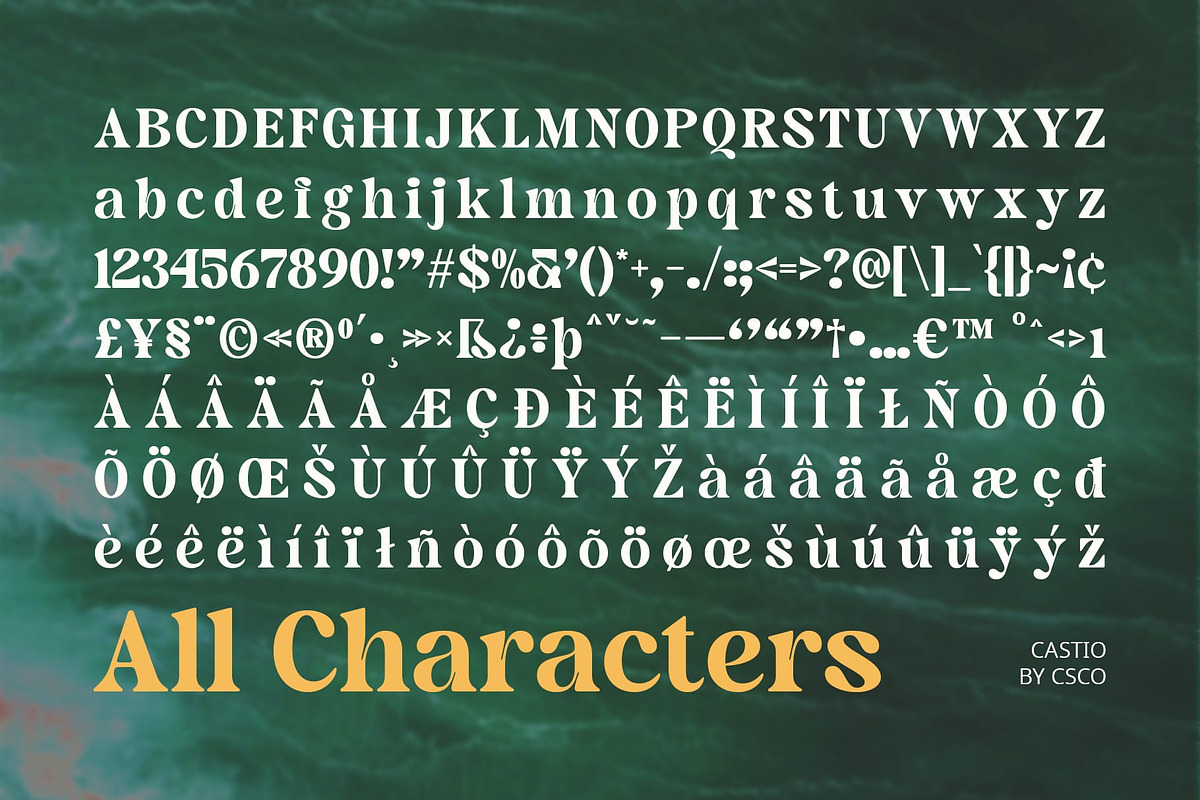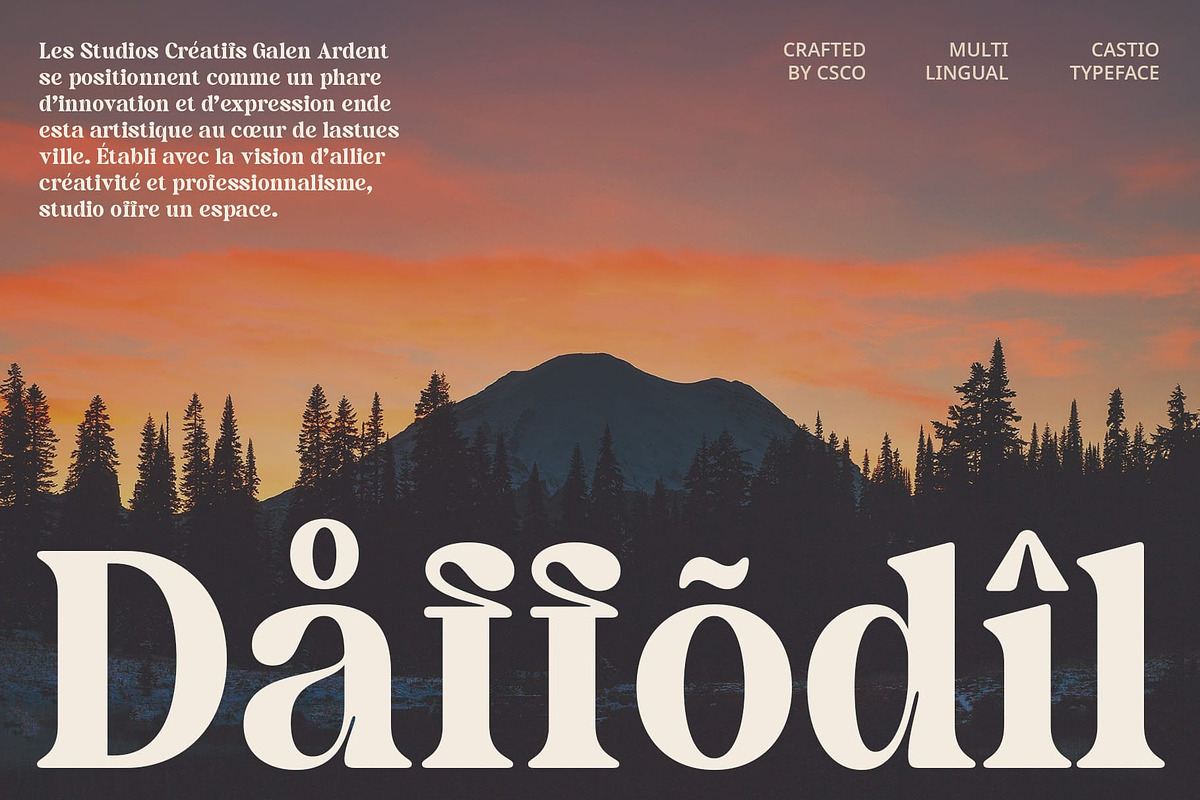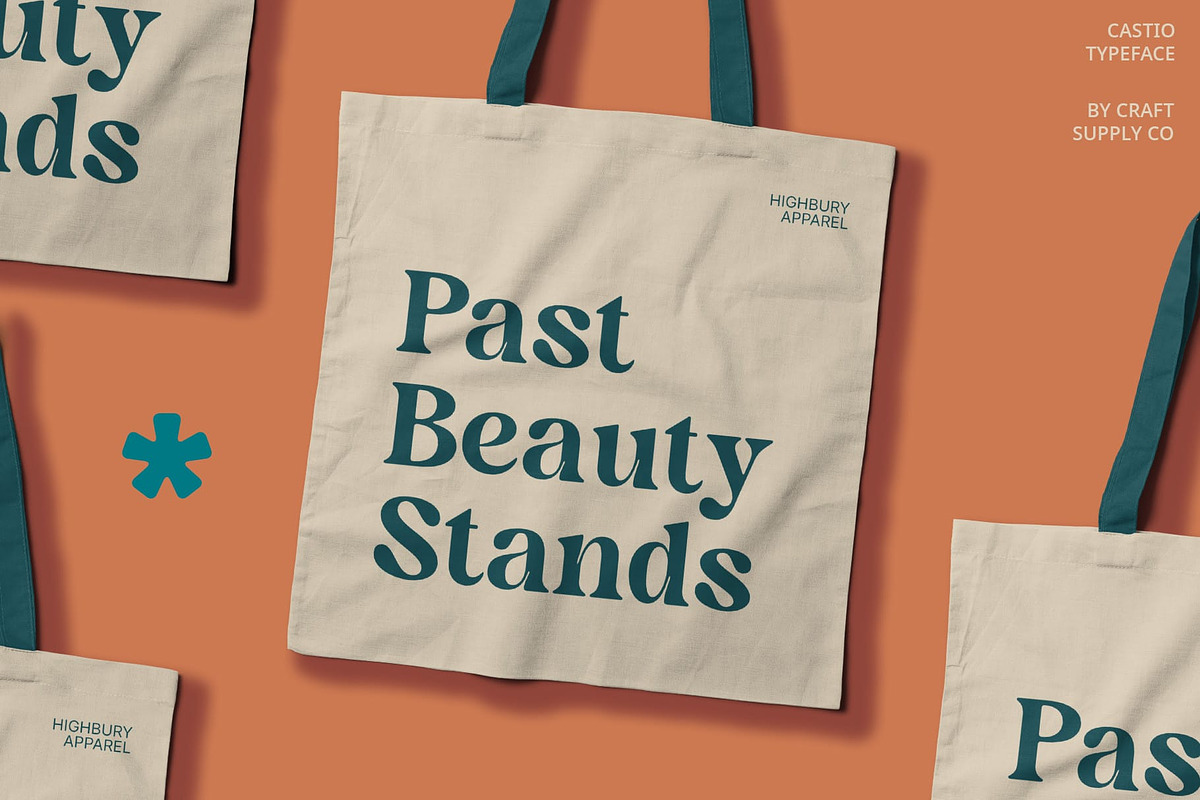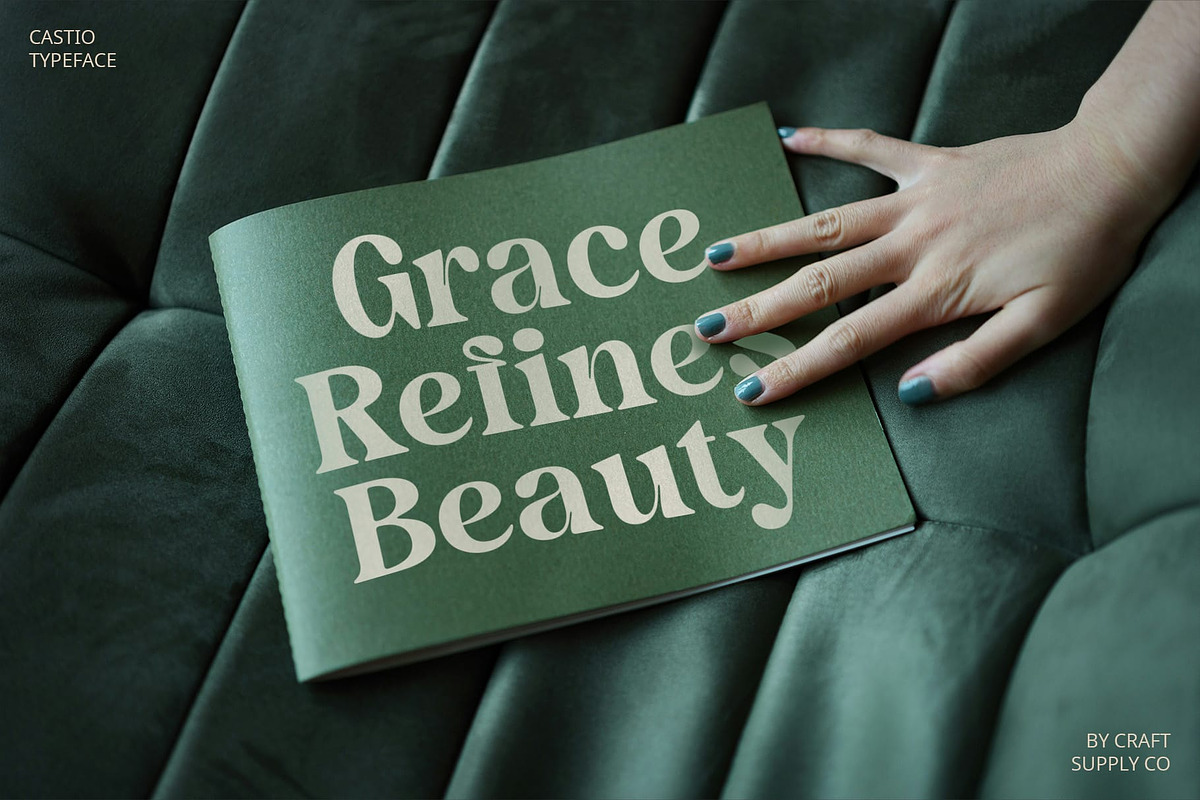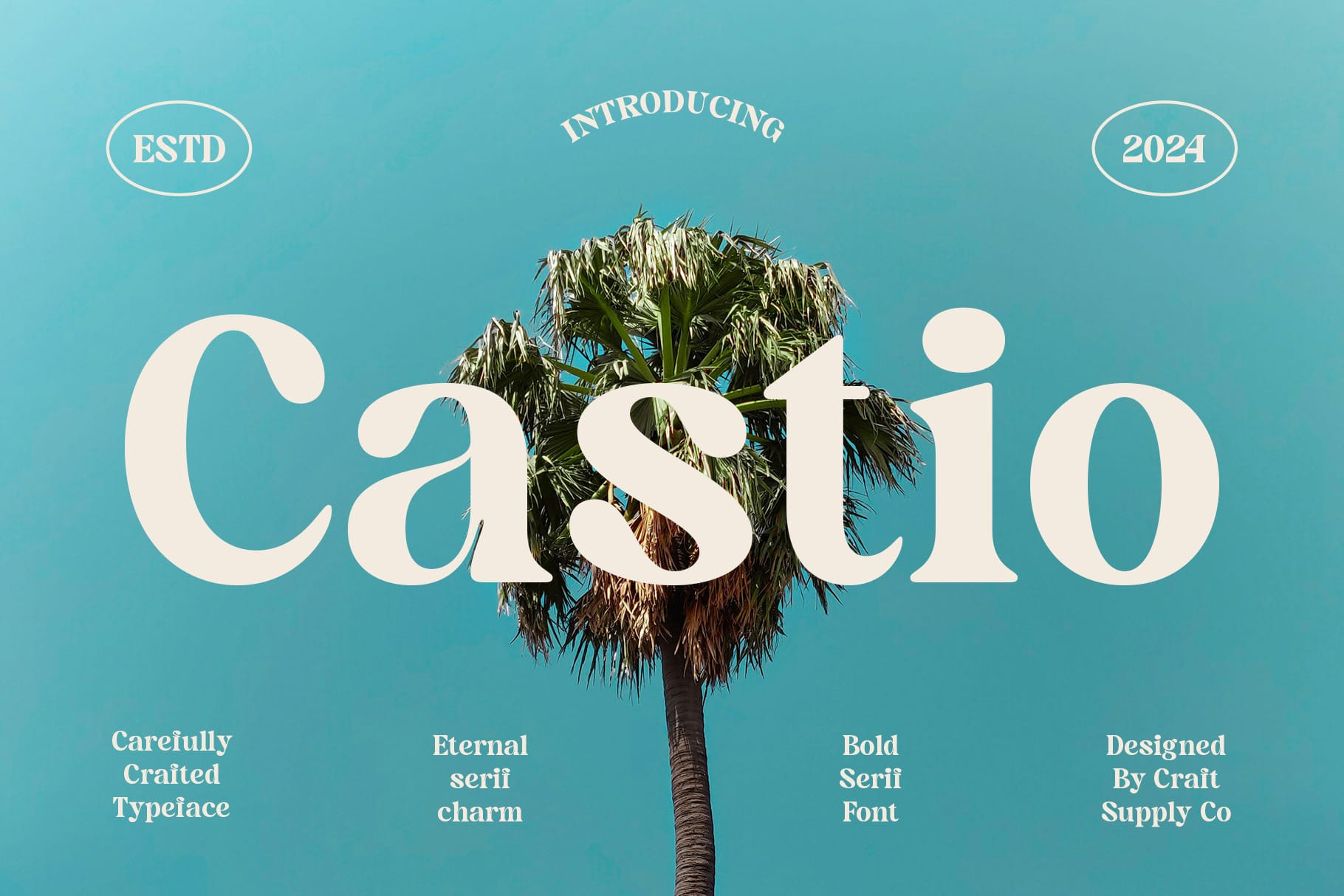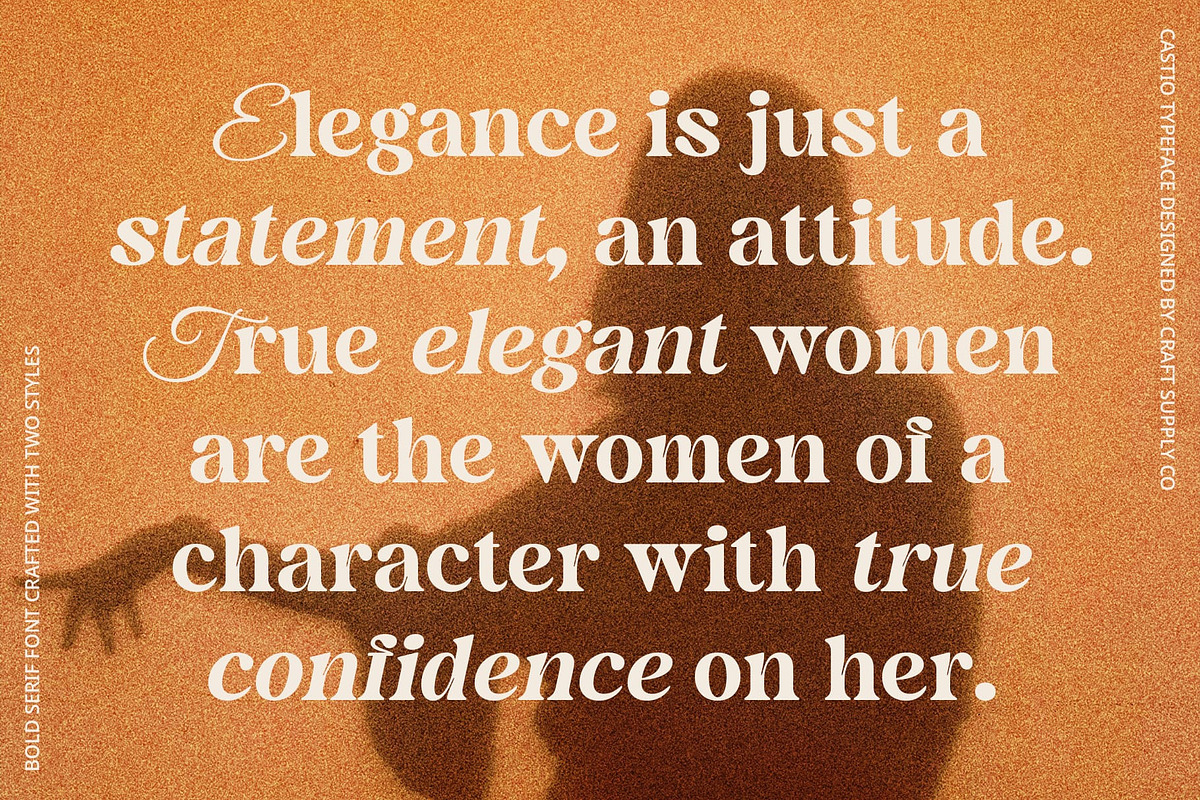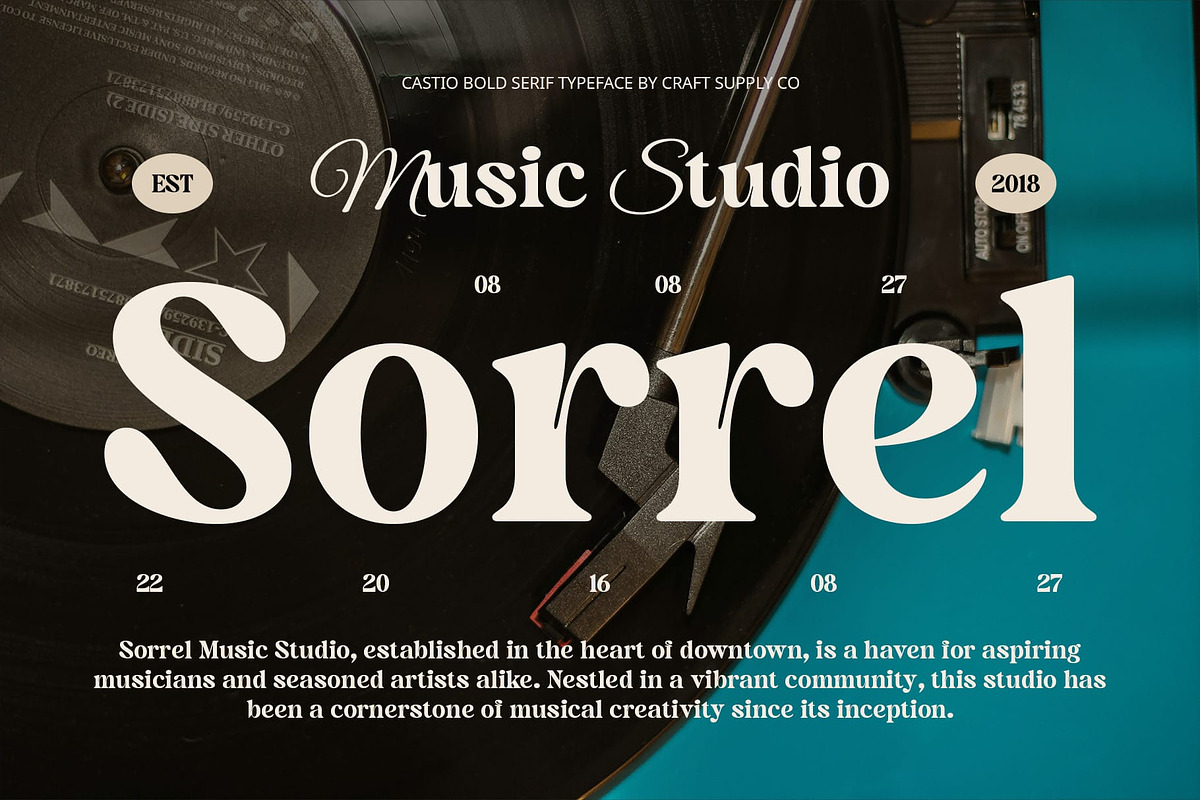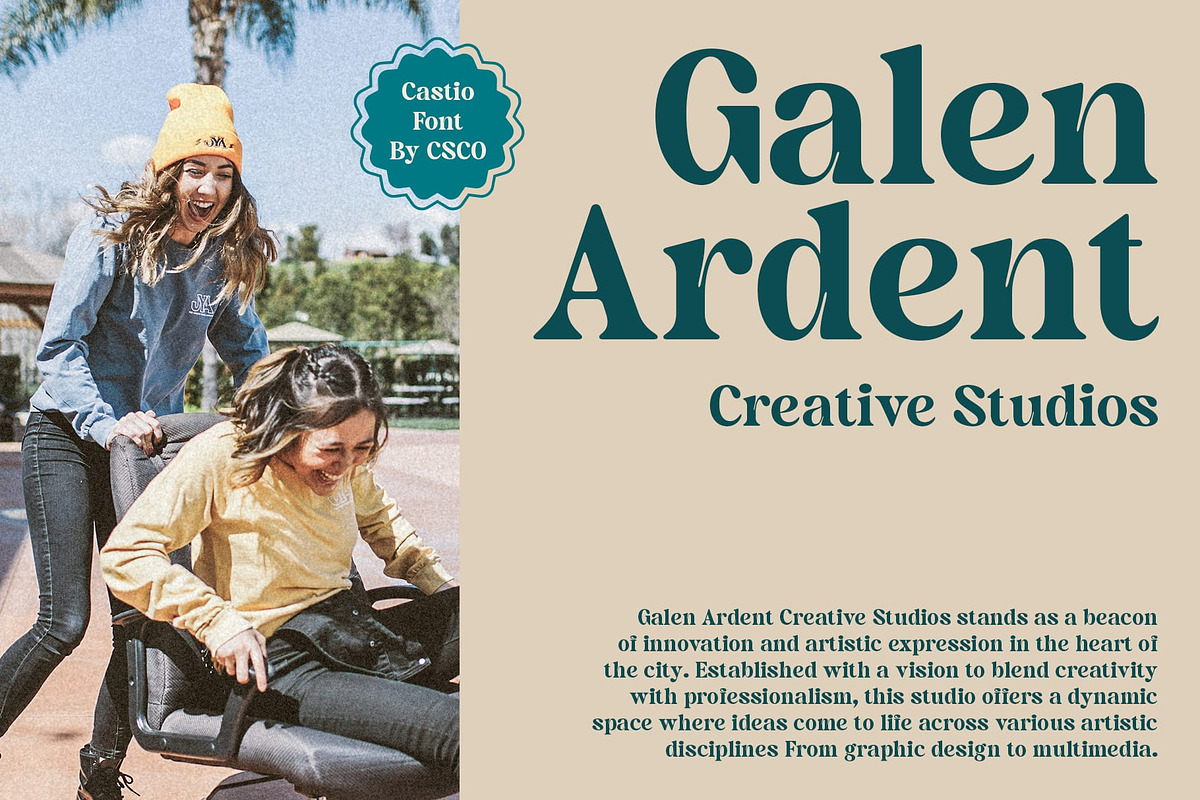
Castio – Bold Font
Castio – Bold Font: Luxurious Nostalgia
Bold Serif Font, Retro and Elegant Castio – Bold Font is a bold serif font with a retro and elegant feel, featuring classic thick lines adorned with subtle decorative details. This font exudes a luxurious nostalgic vibe, making it perfect for designs that aim to highlight opulence and heritage.
Perfect for Titles, Logos, and Branding With its bold and refined design, Castio is ideal for titles, logos, and branding projects that require an elegant and classy vintage touch. Its thick lines and decorative details add a touch of sophistication and timeless appeal to any design.
Elegant and Classy Castio’s retro and elegant style makes it suitable for a variety of design applications. Whether you’re creating a high-end brand, a vintage-inspired logo, or an eye-catching title, Castio adds a sense of luxury and elegance.
Elevate Your Designs with Castio Elevate your designs with Castio – Bold Font, where retro elegance meets bold sophistication. Its luxurious nostalgic vibe makes it the perfect choice for projects that demand a classy and opulent touch.
- Castio Regular
- Castio Italic